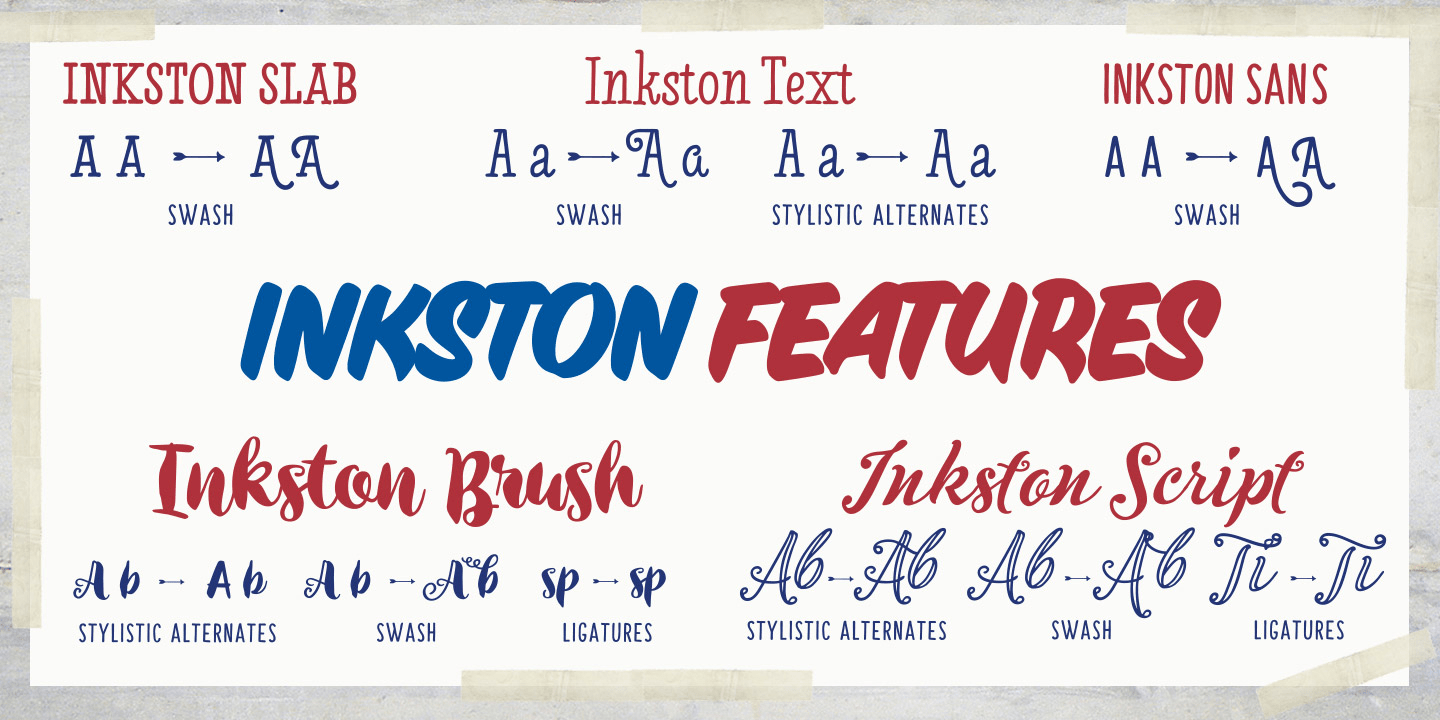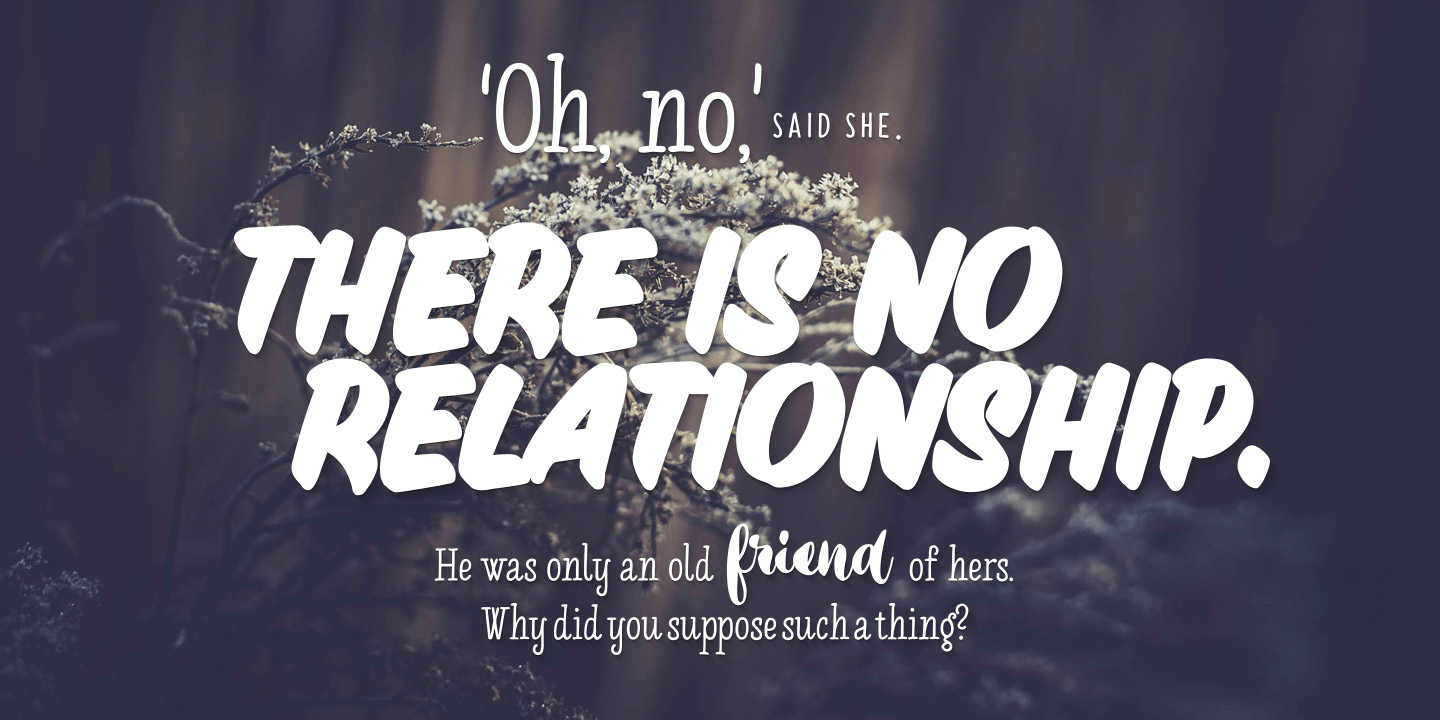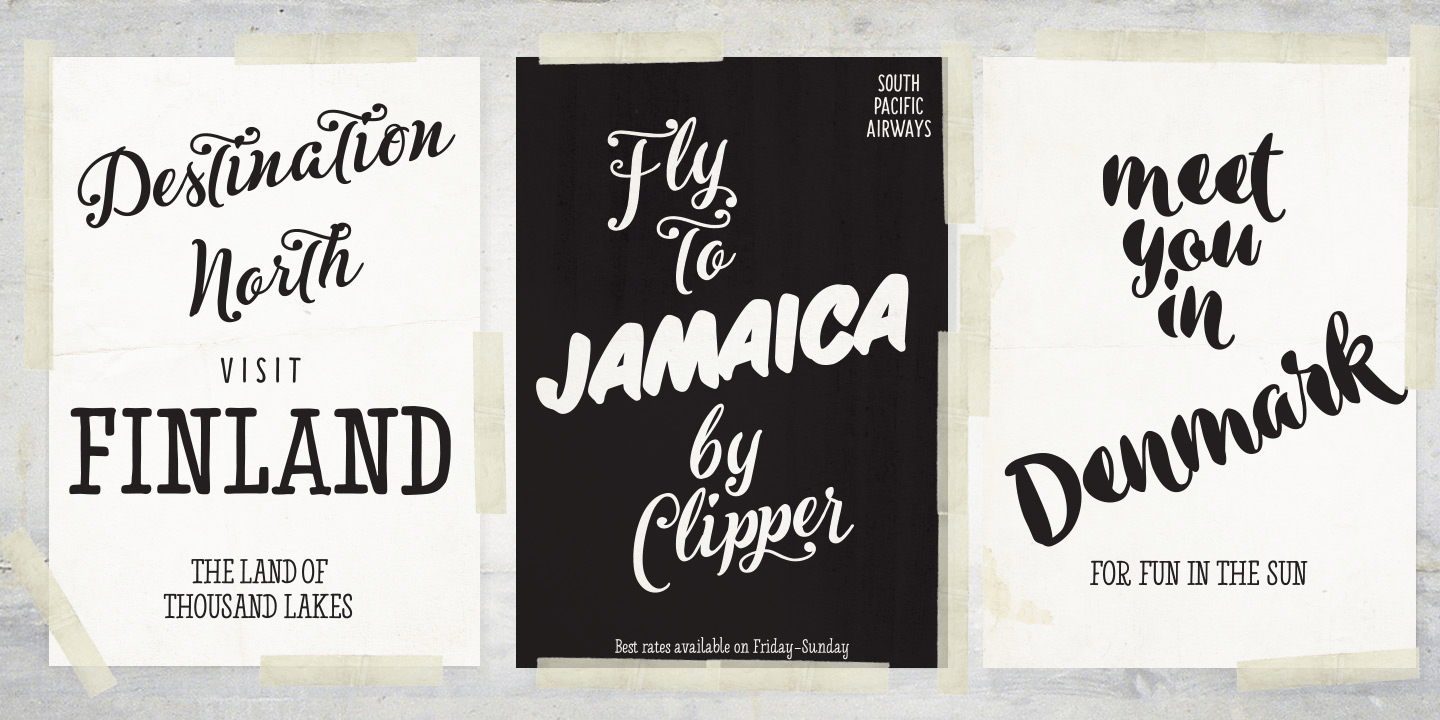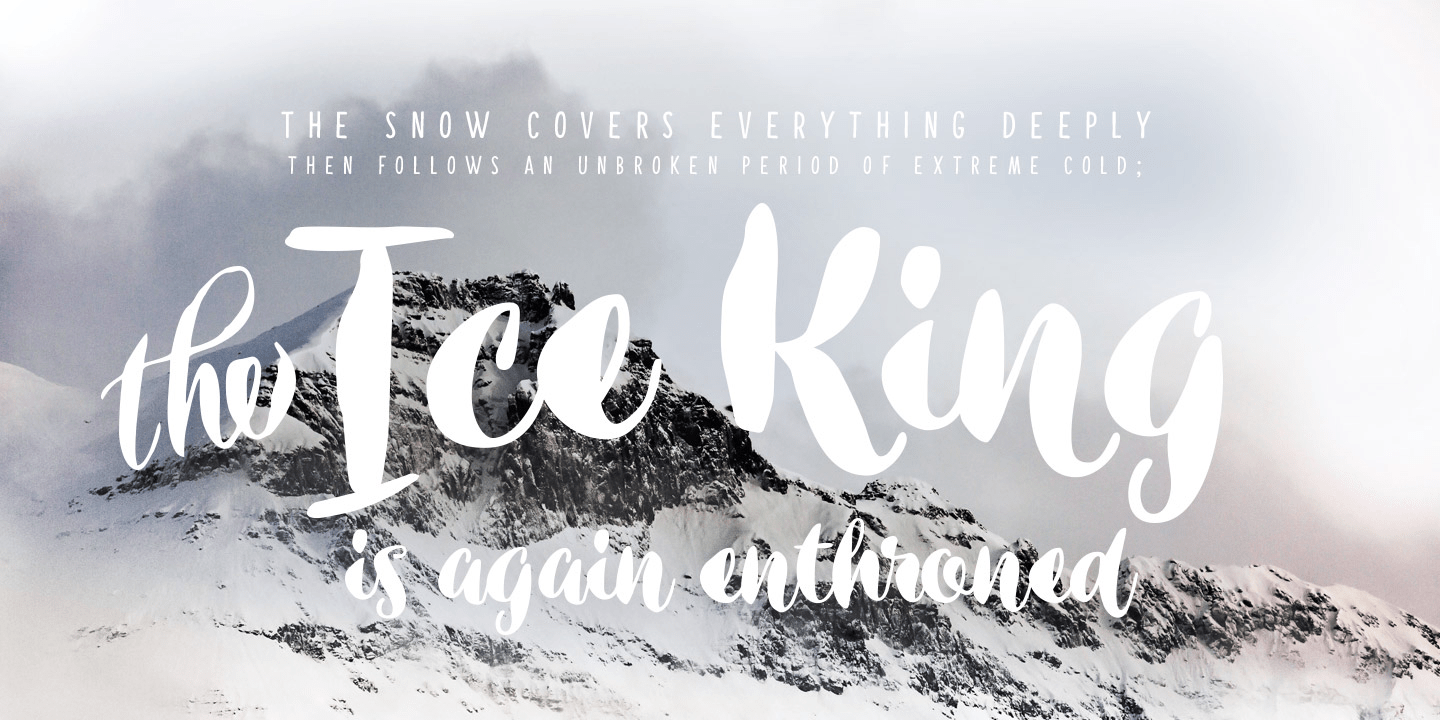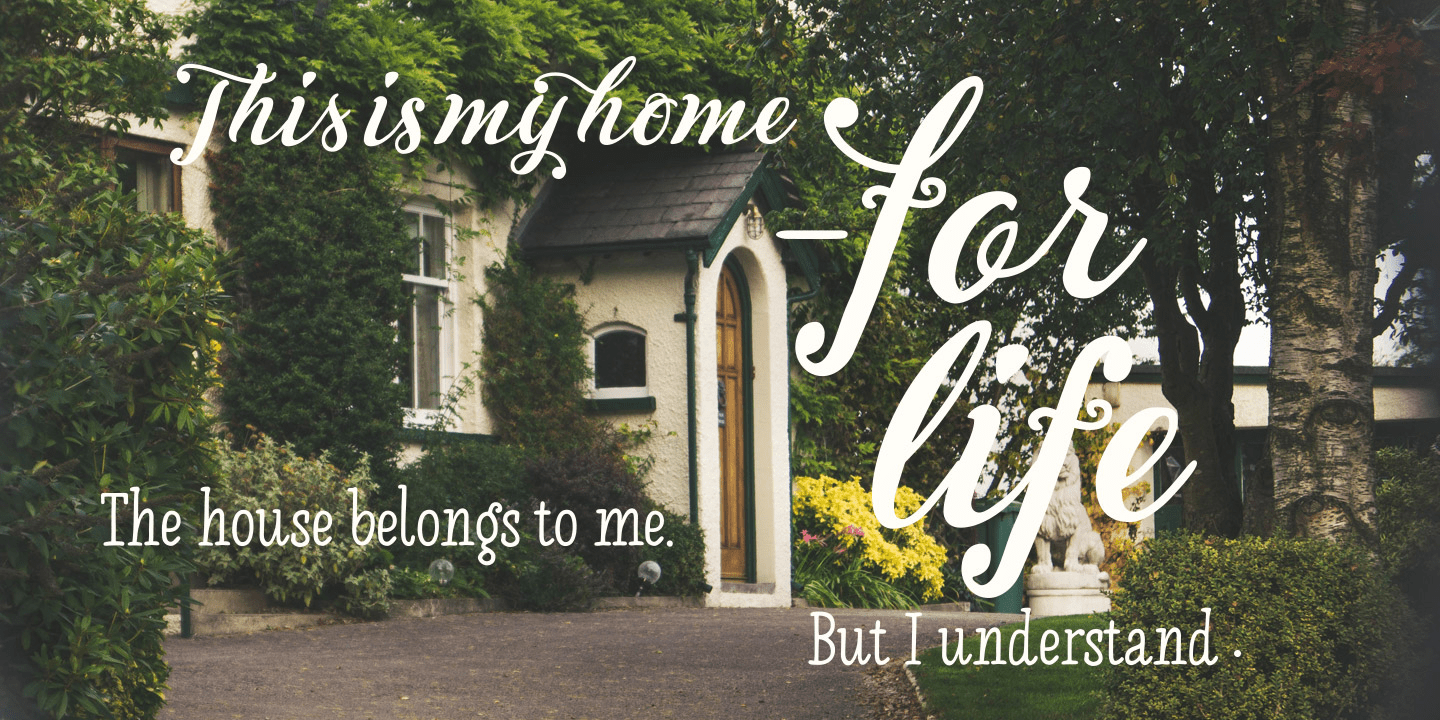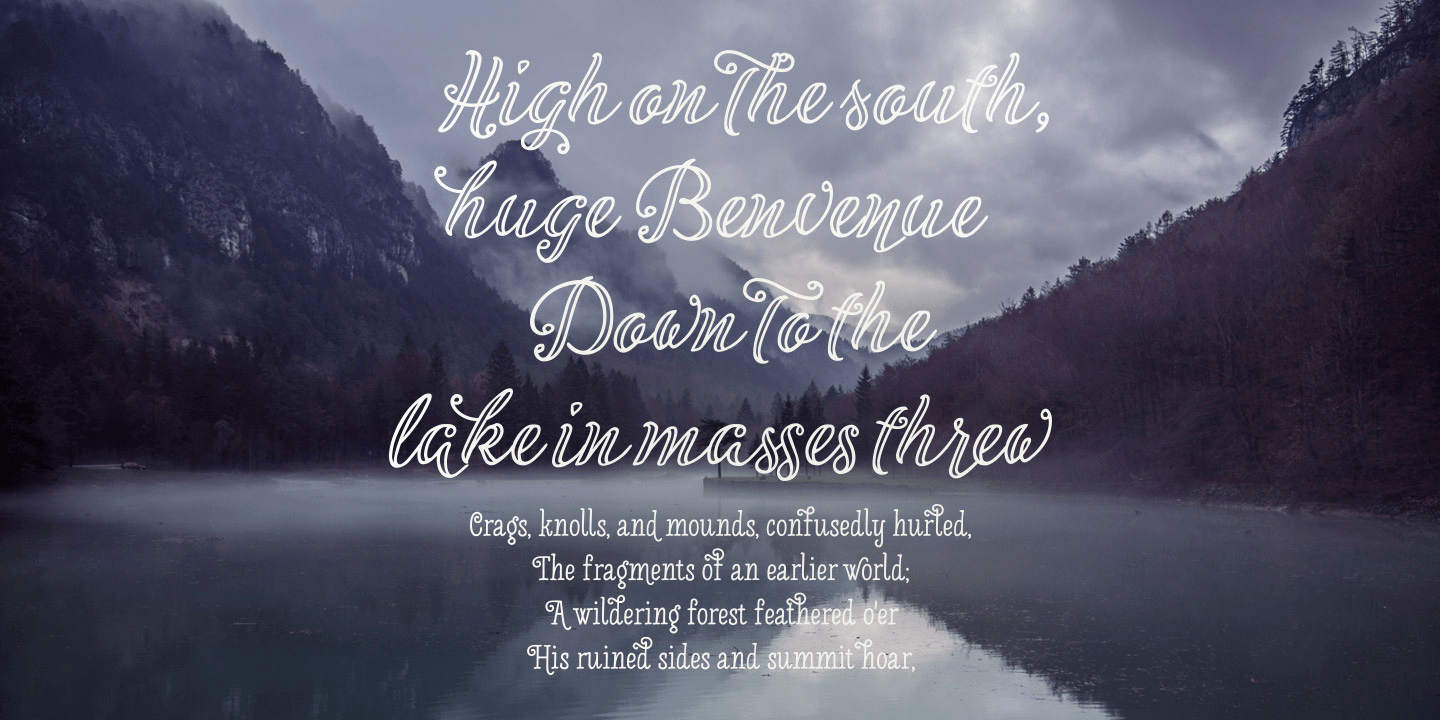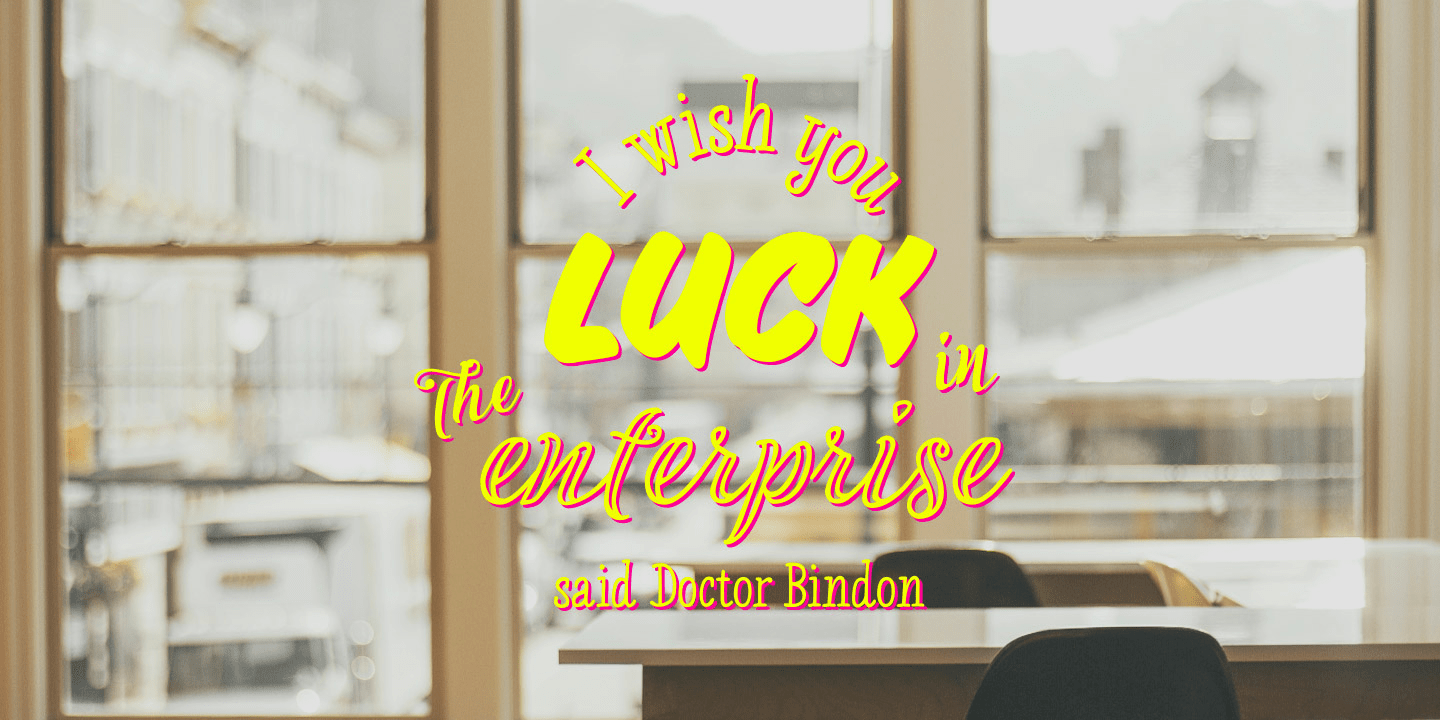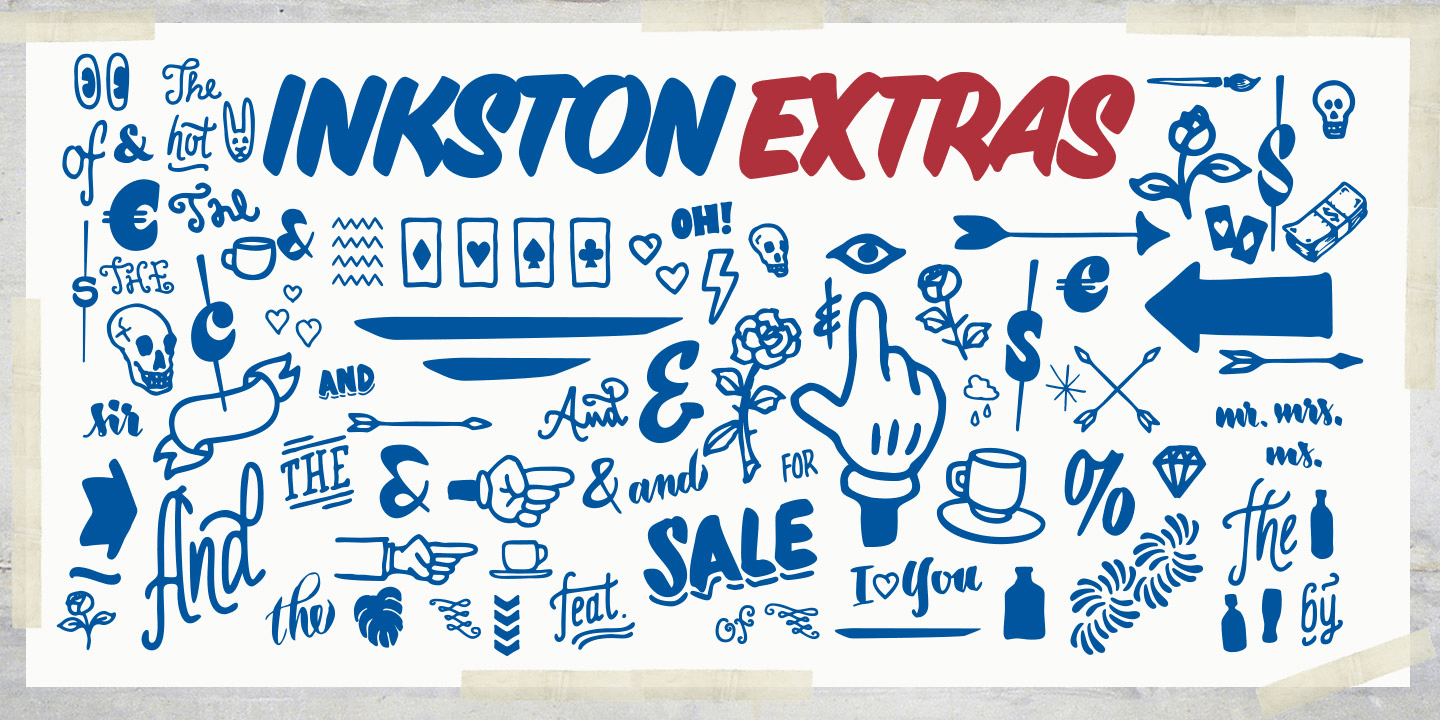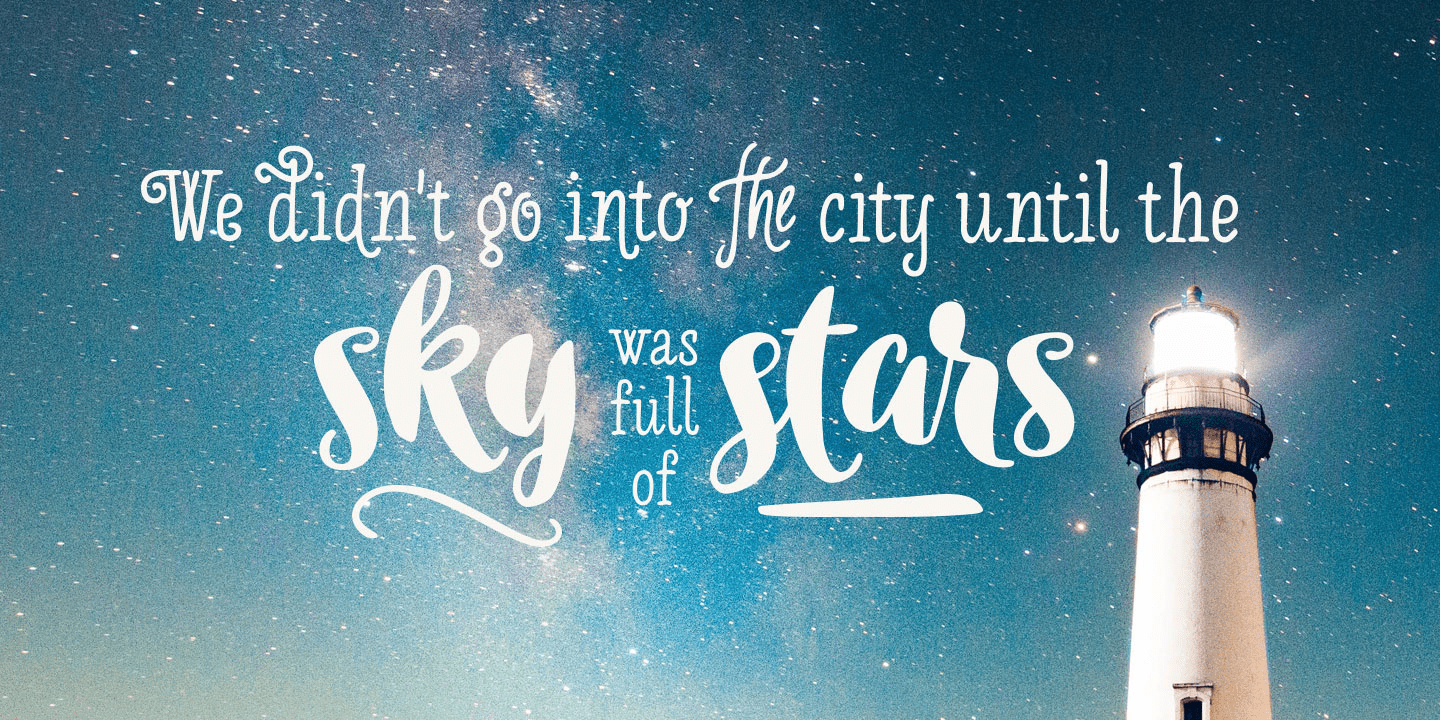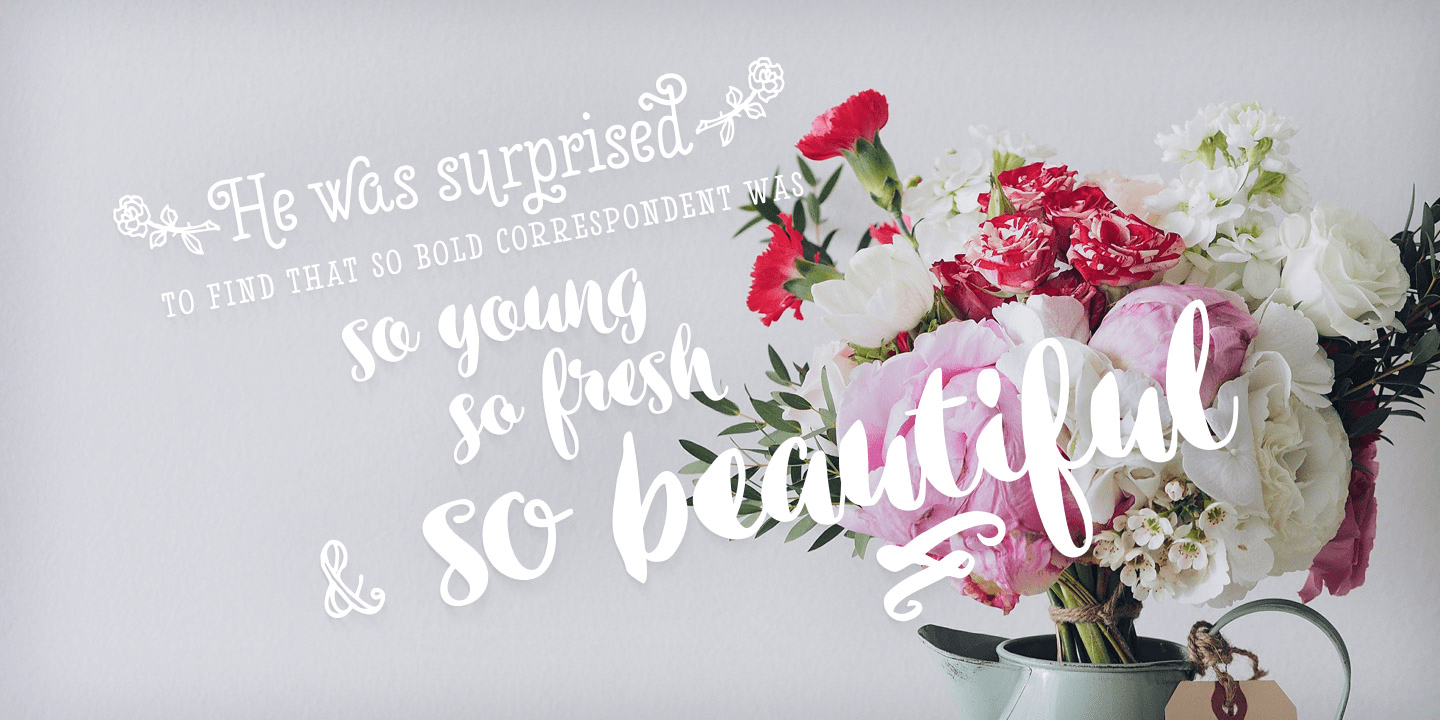
Inkston
Inkston is a versatile display family with an urban, after-hours feel—equal parts casual, expressive, and polished. Its mix of script, brush, sans, slab, and text-driven styles gives it a lively voice that can shift from hand-done and energetic to clean and grounded, depending on the look you want to build.
With 11 styles included, this family gives designers plenty of room to layer contrasting textures and create more dimensional typography. Use it for branding, restaurant identities, packaging, posters, nightlife promotions, social graphics, or any project that benefits from a bold, metropolitan personality with a handcrafted edge.
Created by Fenotype, Inkston is especially useful when you want a coordinated type system instead of a single display font. The variety of weights and companion styles makes it easy to mix headline lettering, supporting text, and decorative accents while keeping the overall look cohesive.